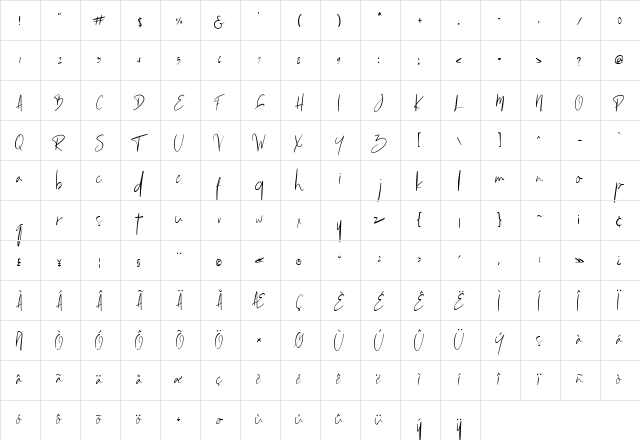
Pommel Regular
Design Context for Pommel Typeface
Pommel is a composed and adaptable typeface that performs quietly and consistently across a wide range of design contexts.